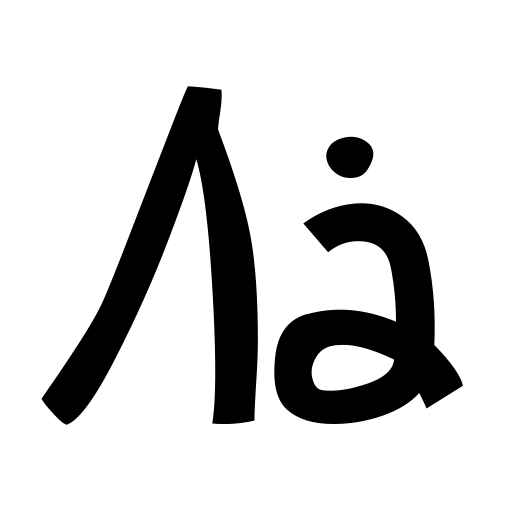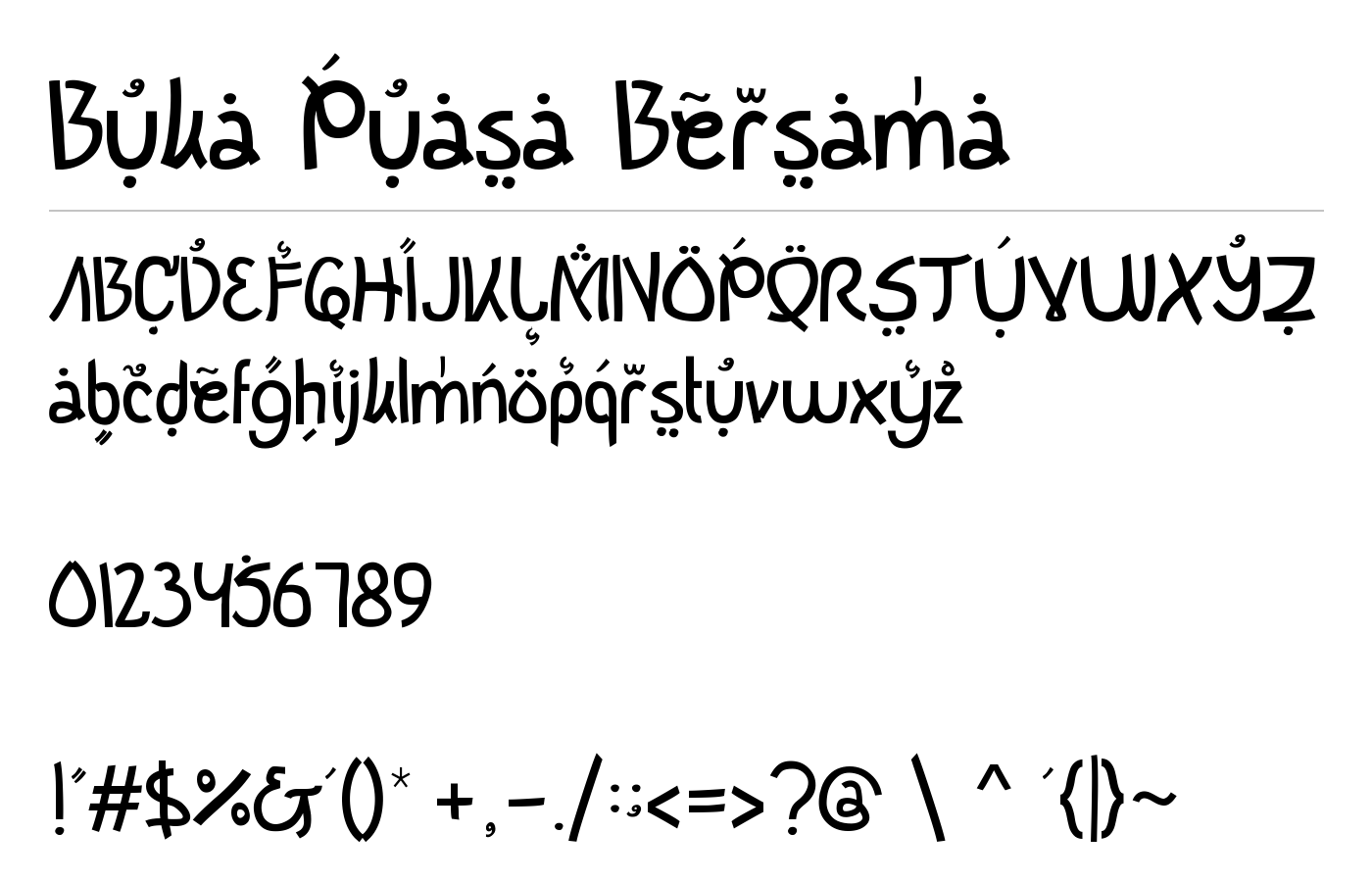
Buka Puasa Bersama is a playful, hand-drawn sans serif font with quirky, irregular letterforms and distinctive diacritical marks that give it a unique, informal character. Its medium weight and moderate contrast make it fun and approachable, ideal for creative projects that want to convey friendliness and individuality. This font works wonderfully for casual branding, posters, children's materials, and social media graphics where a lively, personal touch is desired.
Buka Puasa Bersama Font
About Buka Puasa Bersama Font